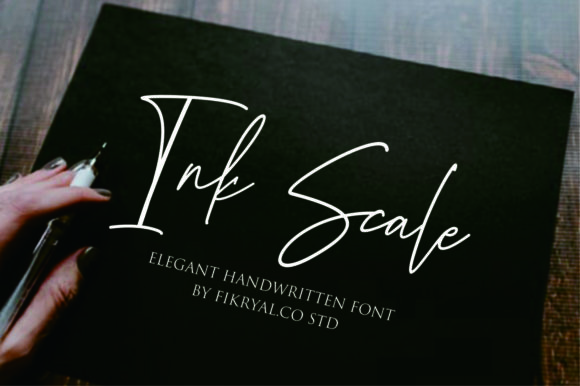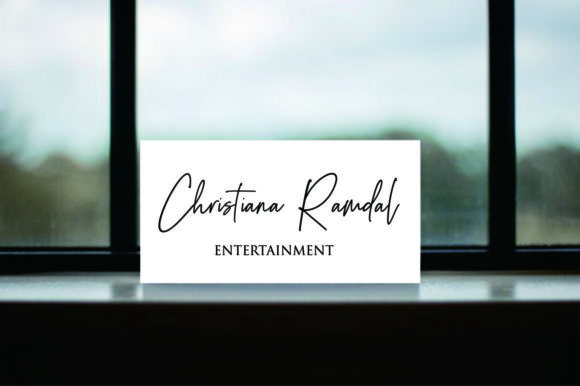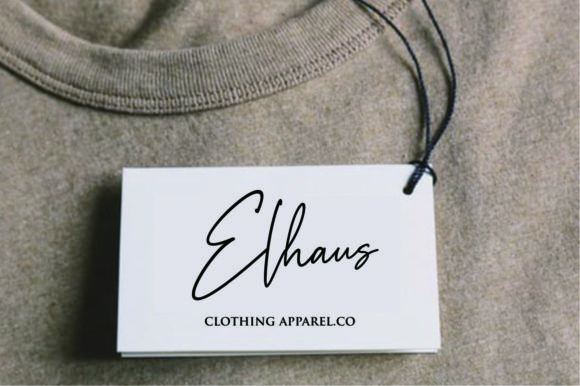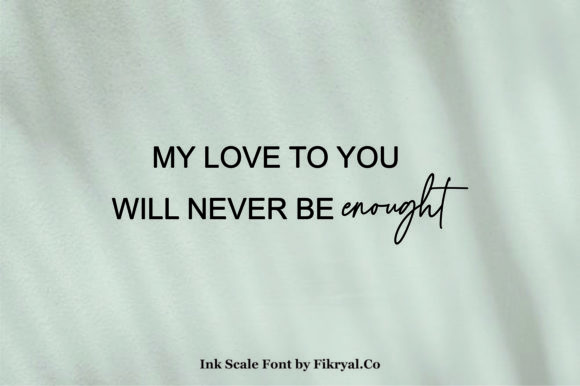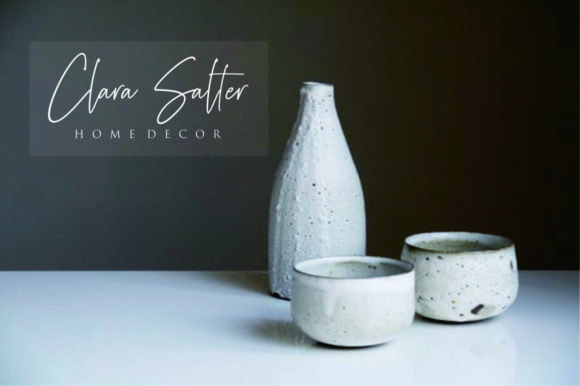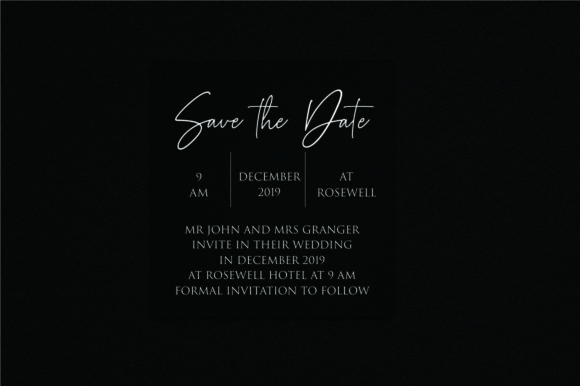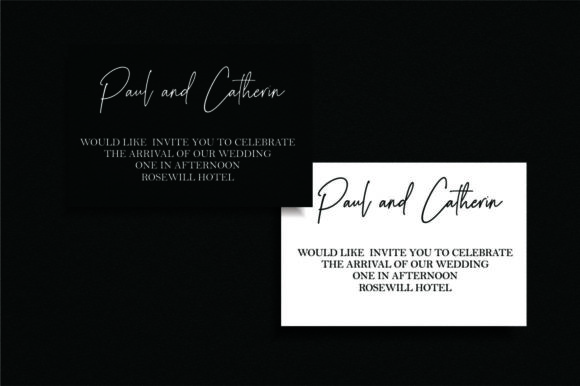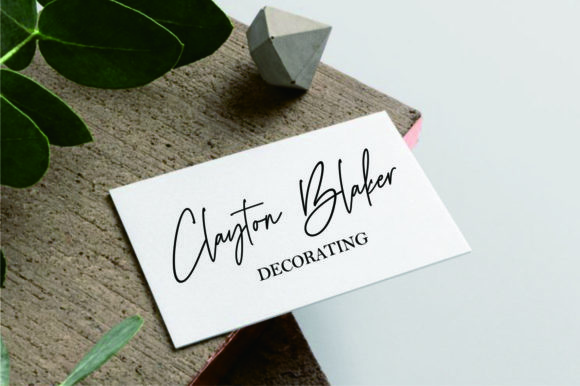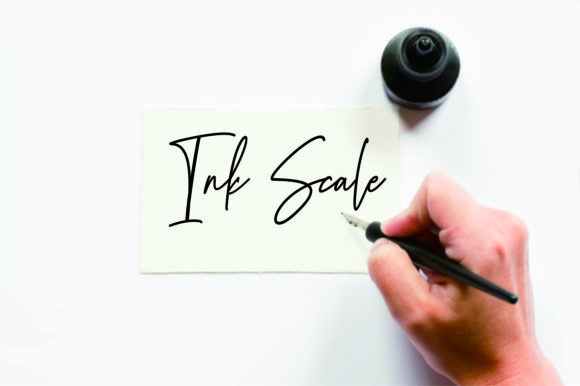
HomeScript FontsInk Scale Font Script Fonts Ink Scale Font FacebookXPinterestWhatsApp Ink Scale Font Poster 2 Ink Scale Font Poster 3 Ink Scale Font Poster 4 Ink Scale Font Poster 5 Ink Scale Font Poster 6 Ink Scale Font Poster 7 Ink Scale Font Poster 8 Ink Scale Font Poster 9 About Ink Scale Font Ink Scale is an equally modern and authentic script that will easily elevate your next design project! DOWNLOAD NOW People also explored Pomme Noir Font Familite Font Kidzo Merry Christmas Font Cinnamon Coffe Cake Font Guemoy Brush Font Holiday Font Menleader Font Sacred Love Font 366 0 TagsInk Scale Font Previous articleGalinta FontNext articleGirl Boss Font LEAVE A REPLY Cancel reply Comment: Please enter your comment! Name:* Please enter your name here Email:* You have entered an incorrect email address! Please enter your email address here Website: Save my name, email, and website in this browser for the next time I comment. Personal Use Free Uchiyama Personal Use Free Read more about this font Dolce Vita Personal Use Free Read more about this font The Pottery Personal Use Free Read more about this font New Amsterdam Personal Use Free Read more about this font BLOG Fonts That Capture the Spirit of New York City New York City is more than just a place—it’s an experience, a rhythm, a visual language... Using Fonts in Digital Marketing: Tips to Strengthen Your Brand Identity Best Fonts for YouTube Videos: Make Your Thumbnails Stand Out Best Fonts for T-Shirt Design – Top 2025 Picks